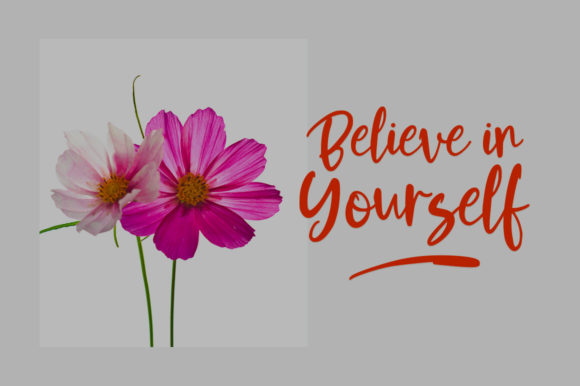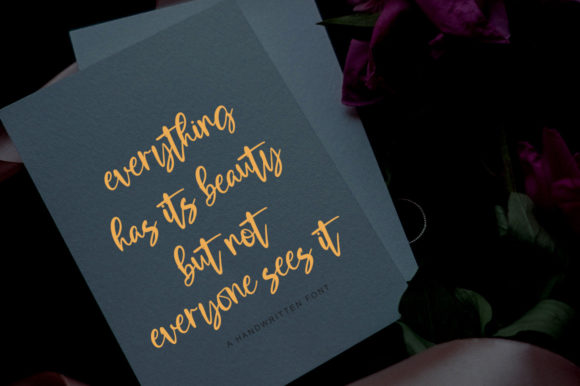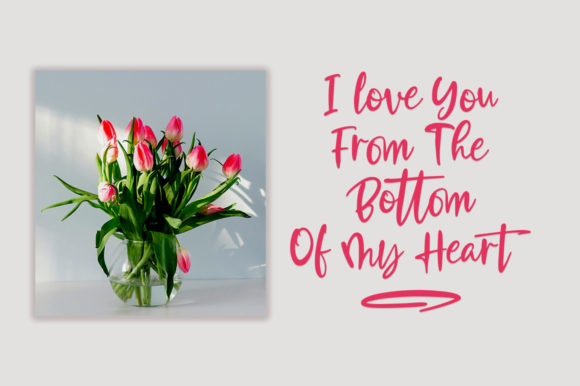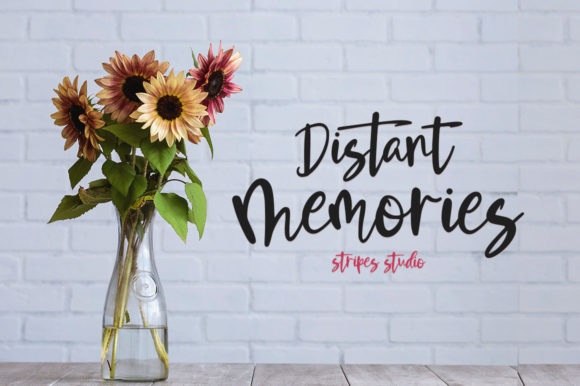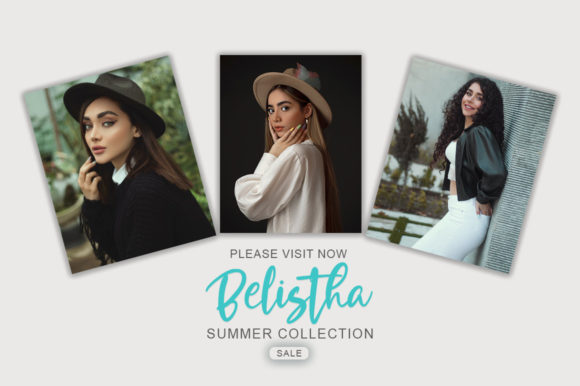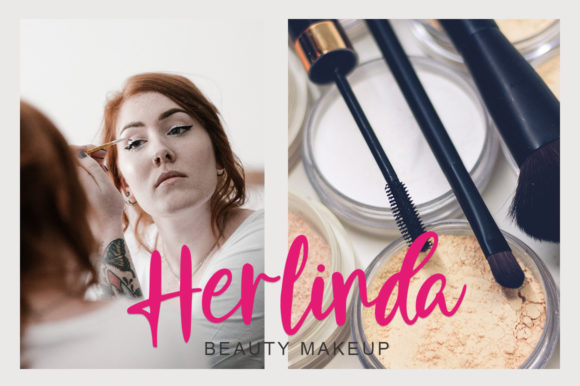
Introduction to Meyola Font
Have you ever found yourself stuck in the middle of a creative project, struggling to convey the perfect message through typography? I know I have. But what if I told you there’s a magical solution to elevate your designs and make your words shine? Enter the Meyola Font, a stunning script font that’s about to become your new best friend.
With its elegant touch and PUA encoded features, Meyola Font is the ultimate design resource for any creative project. Whether you’re working on a branding campaign or designing a beautiful wedding invitation, this font is sure to add a touch of sophistication and class. Plus, with a transparent background and high quality design, you can trust that your work will stand out from the crowd.
Key Features of Meyola Font
- Unique, elegant design with a transparent background
- Includes 1 font style with multiple weights and sizes
- Perfect for logos, branding, and other design elements
Honest Review: Meyola Font
I recently stumbled upon the Meyola Font, a design resource that caught my eye with its unique and elegant aesthetic. As a designer, I was eager to dive in and see if it would live up to its promise.
Here are some things that work well with the Meyola Font:
- ✨ High-quality typography: The font is crisp and clear, with a level of detail that makes it perfect for creative projects.
- ✨ Transparent background: This feature allows for seamless integration with images and other design elements, making it a versatile choice for designers.
- ⚠️ Limited font family: Meyola Font is a single font family, which may limit its versatility in certain design projects.
- ⚠️ Not suitable for small text: Due to its elegant and decorative nature, Meyola Font may not be the best choice for small text or body copy.
Overall, I’m impressed with the Meyola Font and its potential to elevate creative projects. While it may have some limitations, its unique style and high-quality typography make it a valuable addition to any designer’s toolkit.
How to Use Meyola Font
The Meyola Font is a high-quality design resource ideal for creative projects that require a unique touch. With its transparent background, this font can be easily integrated into various design platforms.
Using the Meyola Font in Design Platforms
You can use the Meyola Font in various design platforms such as:
Tips for Getting the Most Out of the Meyola Font
To get the most out of the Meyola Font, use it in conjunction with other design elements that complement its unique style. Experiment with different font sizes, colors, and arrangements to create visually appealing designs.
The Meyola Font is ideal for:
- Infographic creation
- Poster and flyer design
Alternatives to Meyola Font
Great Vibes Font is a high-quality, elegant script font that is ideal for creative projects requiring a touch of sophistication. It features a transparent background, making it suitable for overlaying on images or using as a standalone design element. Great Vibes Font is a popular choice among designers, offering a unique blend of modern and classic styles.
Compared to Meyola Font, Great Vibes Font has a more refined and intricate design, making it perfect for projects that require a high level of sophistication. It’s free to download and use for personal and commercial purposes.
Pacifico Font is a beautiful, handwritten font that is perfect for creative projects requiring a relaxed and casual tone. It features a high-quality design with a transparent background, making it suitable for use on various design elements, including logos and graphics. Pacifico Font is a popular choice among designers, offering a unique blend of modern and vintage styles.
Compared to Meyola Font, Pacifico Font has a more laid-back and casual design, making it perfect for projects that require a relaxed tone. It’s free to download and use for personal and commercial purposes.
Can I use Meyola Font with a transparent background?
Yes, Meyola Font supports transparent backgrounds, making it a great choice for designs that require a high level of flexibility and customization. You can use it with a transparent background in most design applications that support this feature.